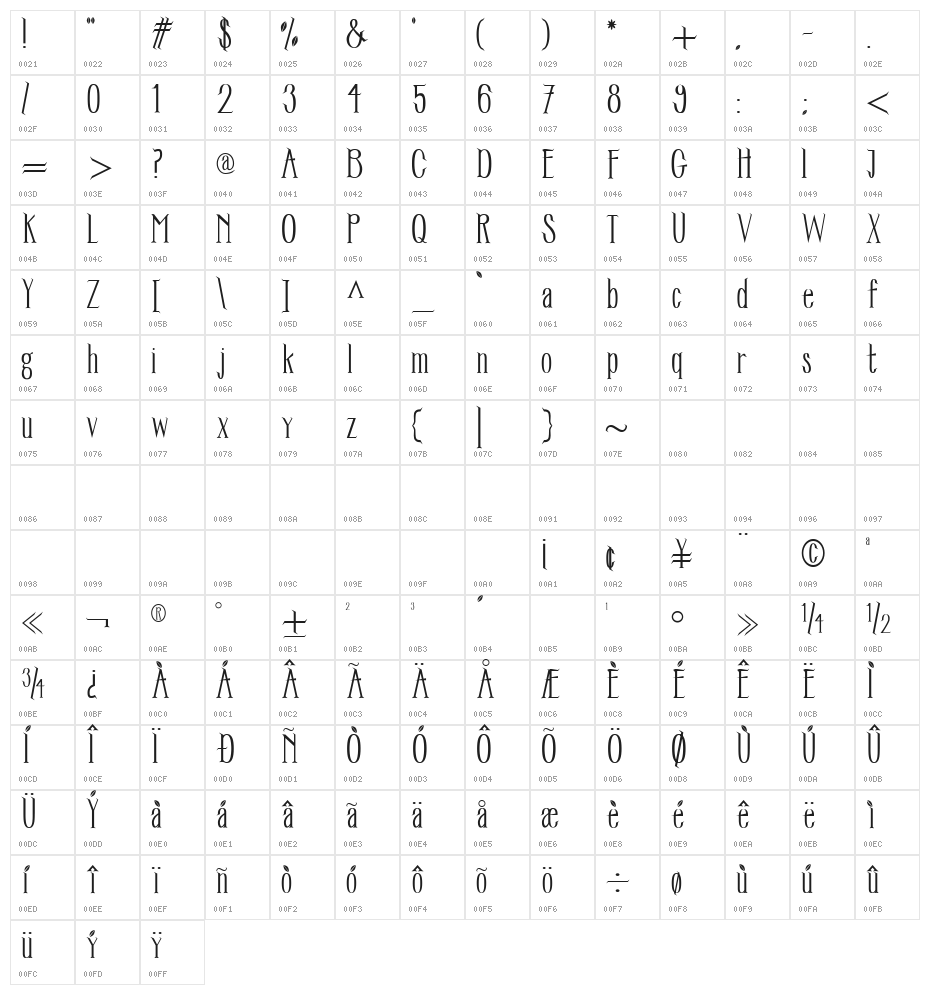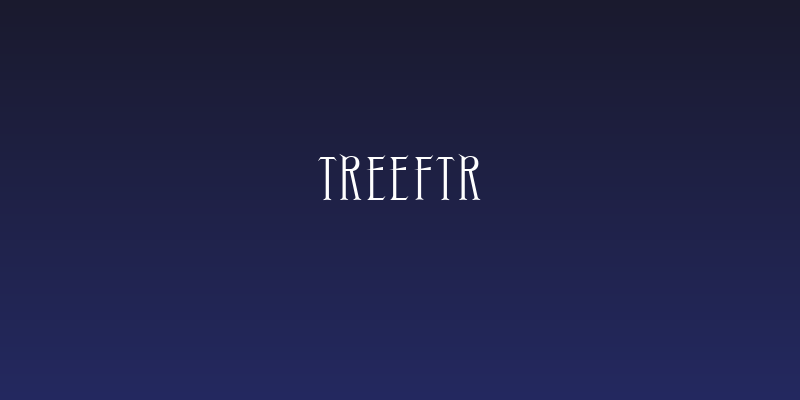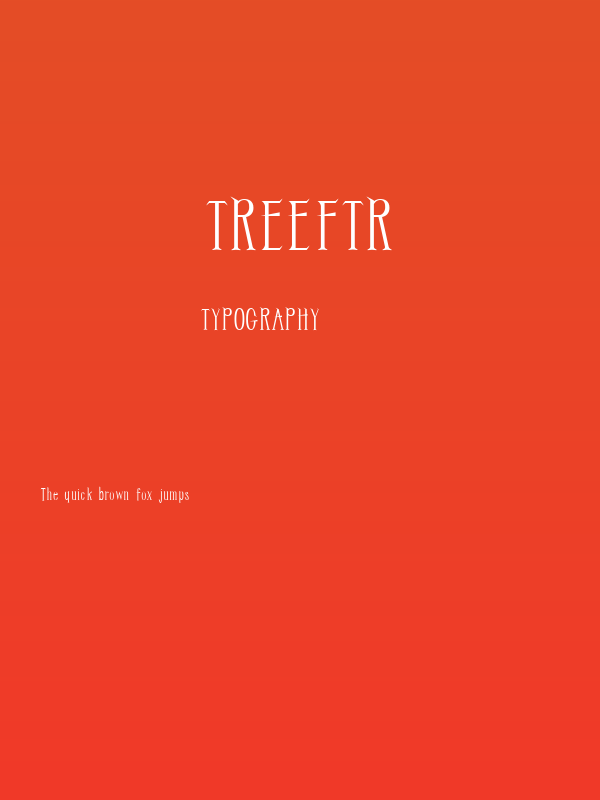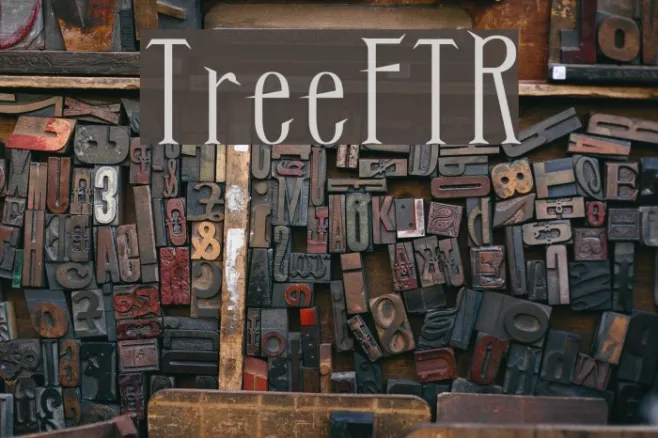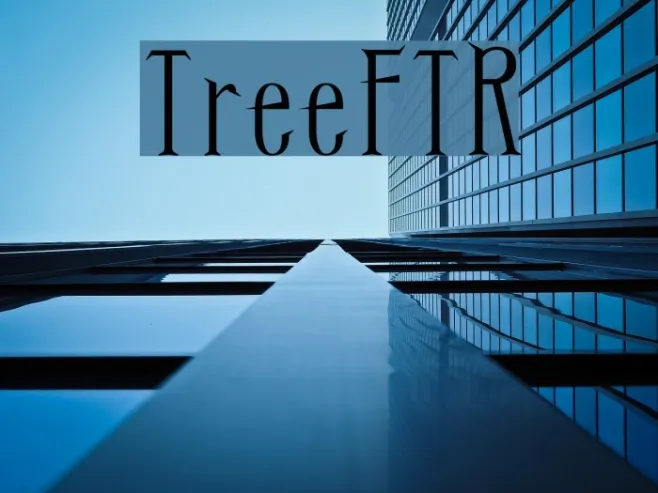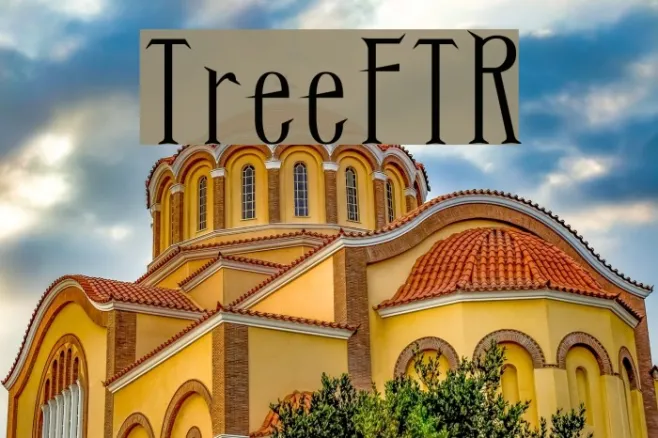
TreeFTR Font
TreeFTR Description
This font features a tall, elegant design with a distinctively narrow structure. The characters exhibit a slight curvature, giving them a graceful and sophisticated appearance. The uppercase letters are particularly elongated, with sharp serifs that add a touch of formality. The lowercase letters maintain a consistent style, complementing the uppercase with their slender forms. Numbers are designed with a similar aesthetic, ensuring uniformity across the font. The special characters are crafted to match the overall style, making them suitable for decorative purposes. This font's unique characteristics make it ideal for projects that require a refined and stylish look.
| Overall Style | Elegant, Sophisticated |
| Proposed Projects | Ideal for wedding invitations, luxury branding, editorial design, and high-end product packaging. |